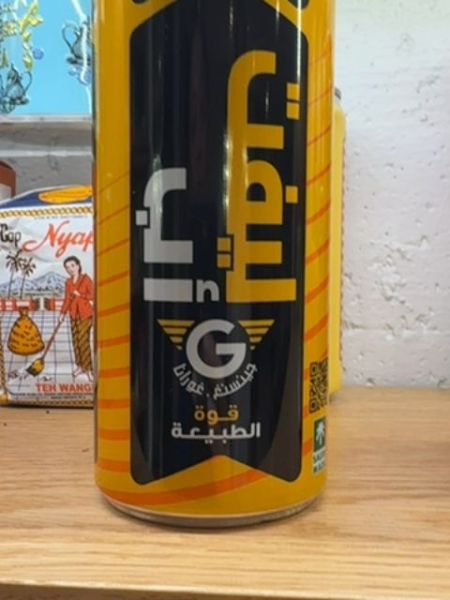
Typography
The typography uses a mix of Arabic script alongside Latin characters in a bold, sans-serif style. The font is modern and clean, with variations in size to create a hierarchy and focus on specific elements like the 'G' symbol.
Facts
- Uses a combination of Arabic and Latin scripts
- Features a prominent 'G' logo